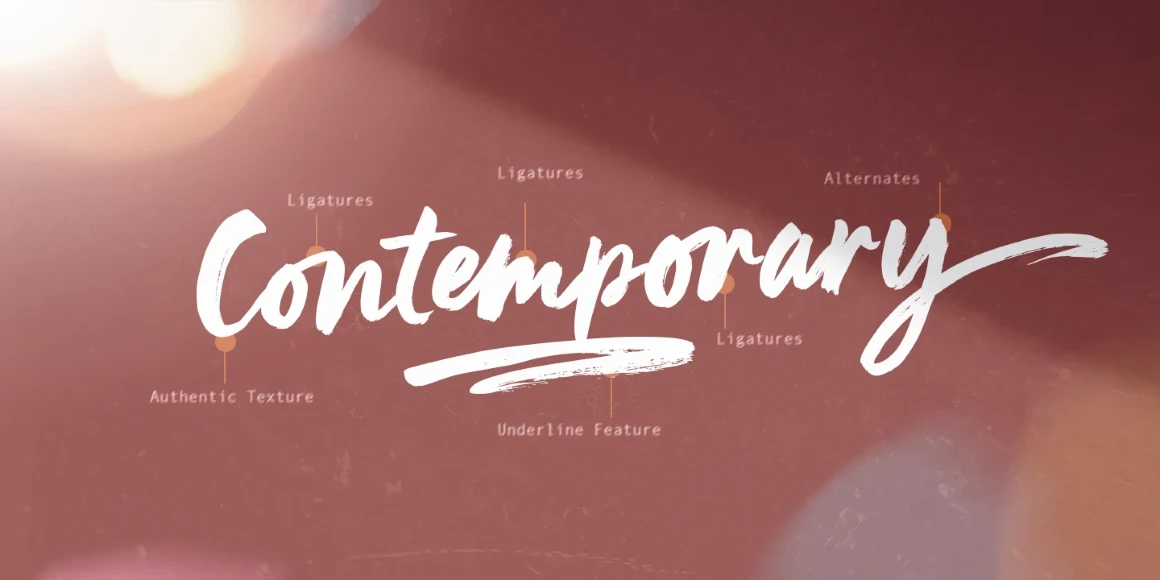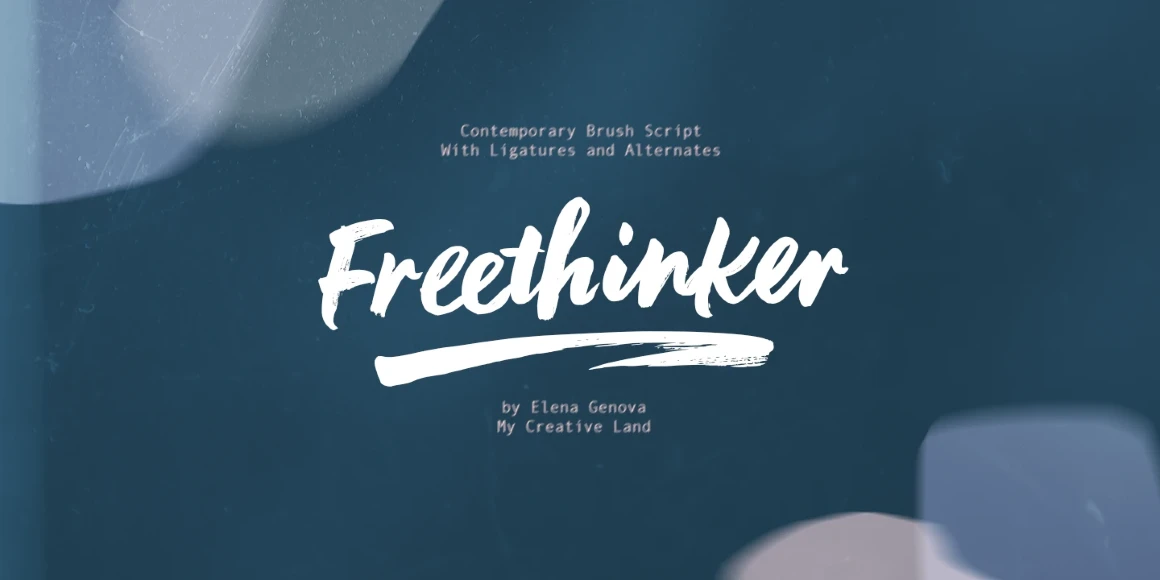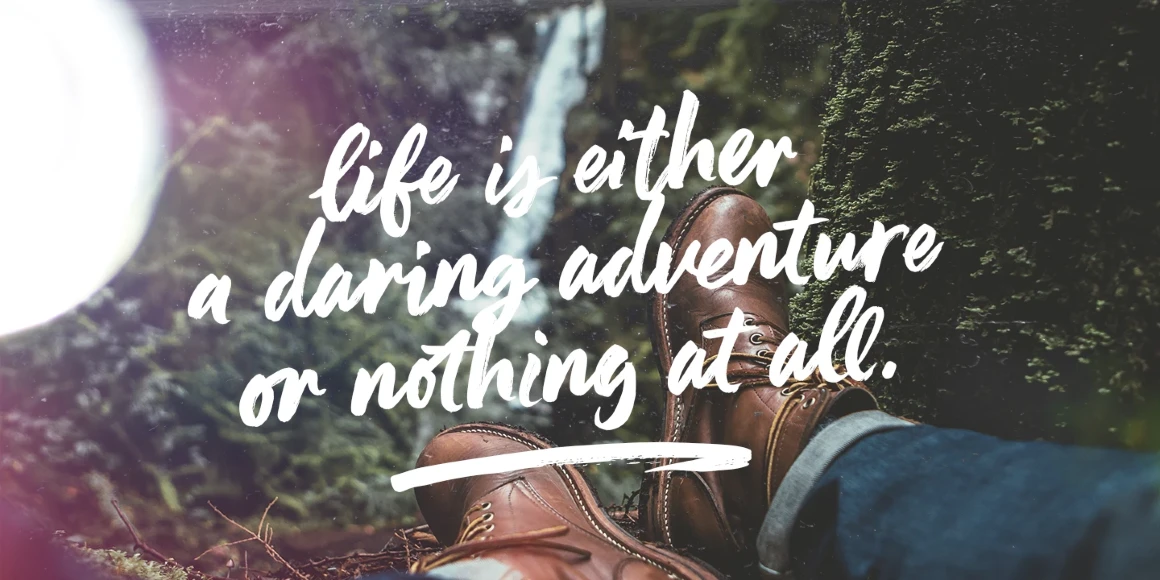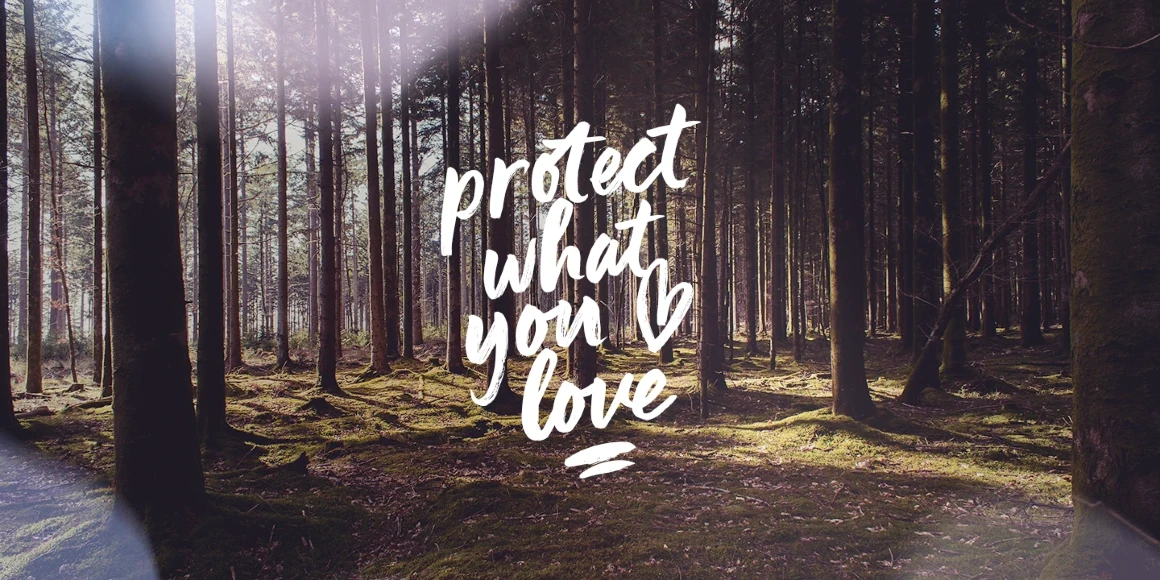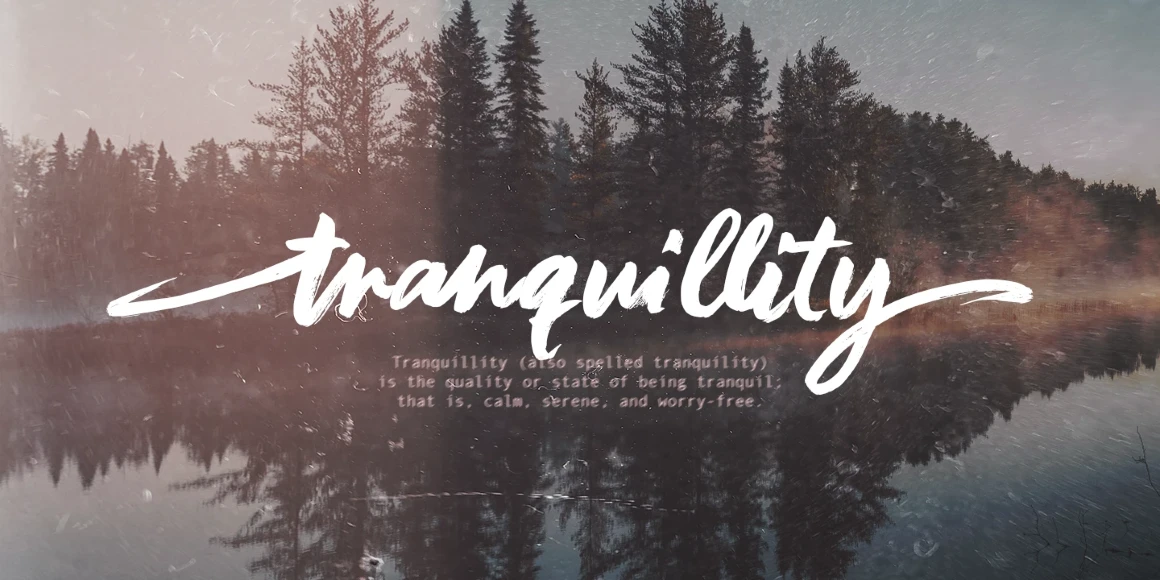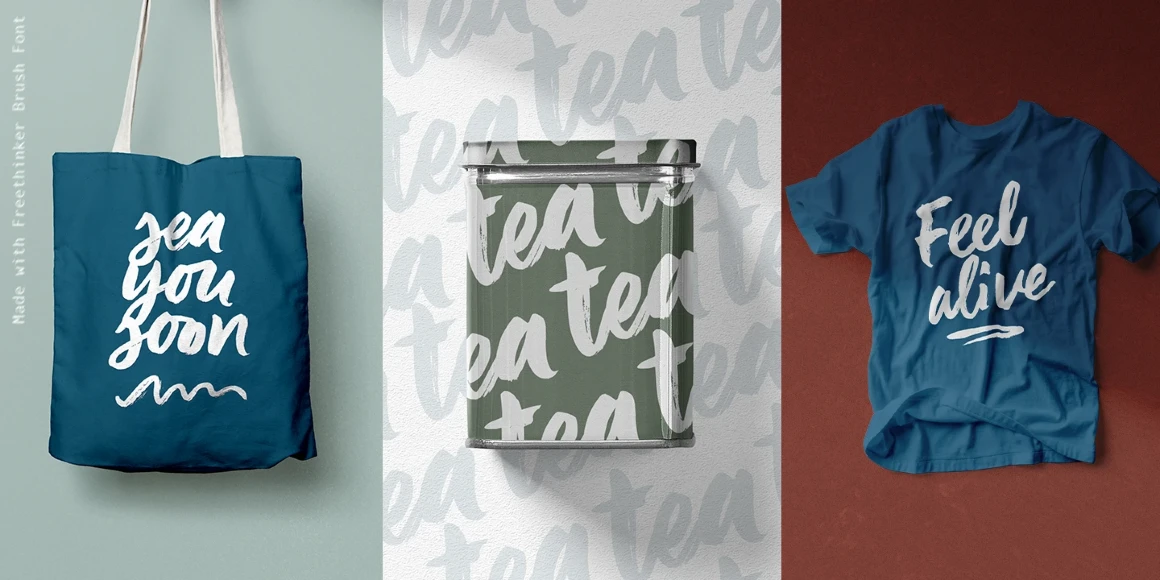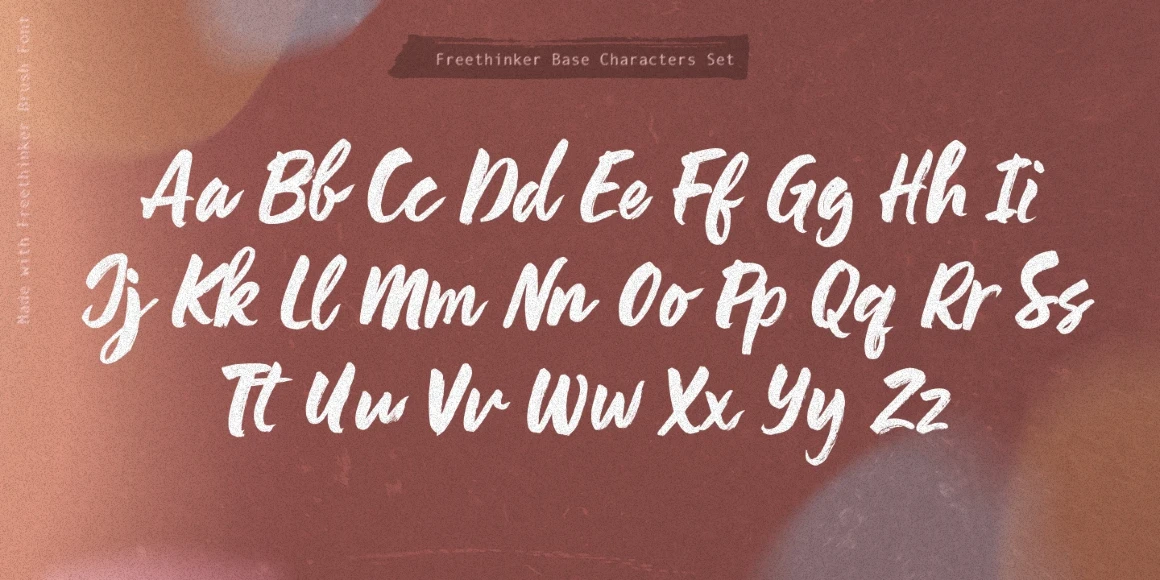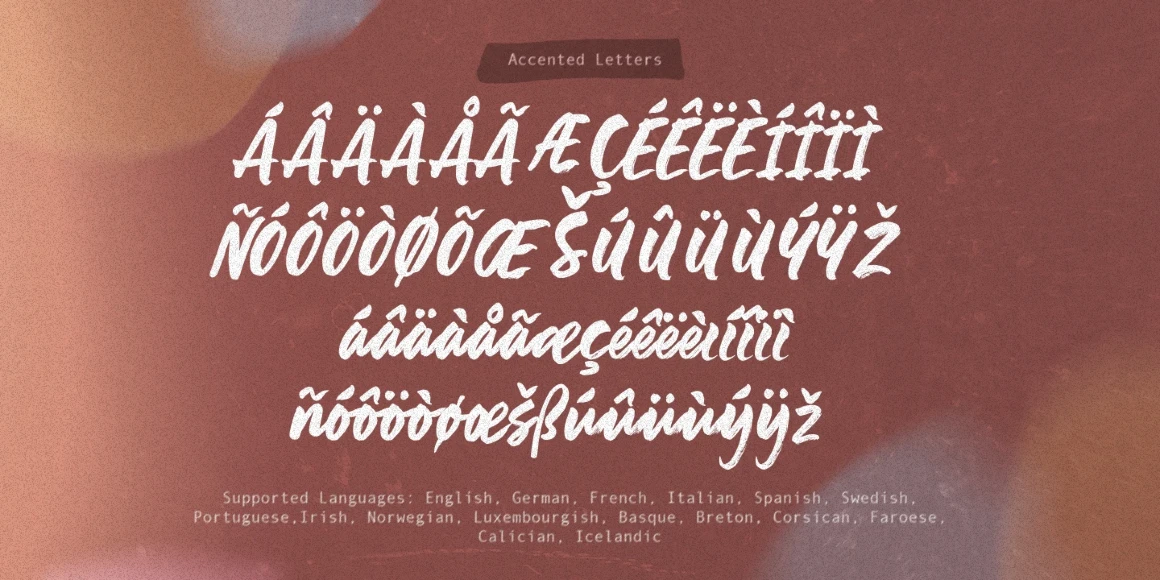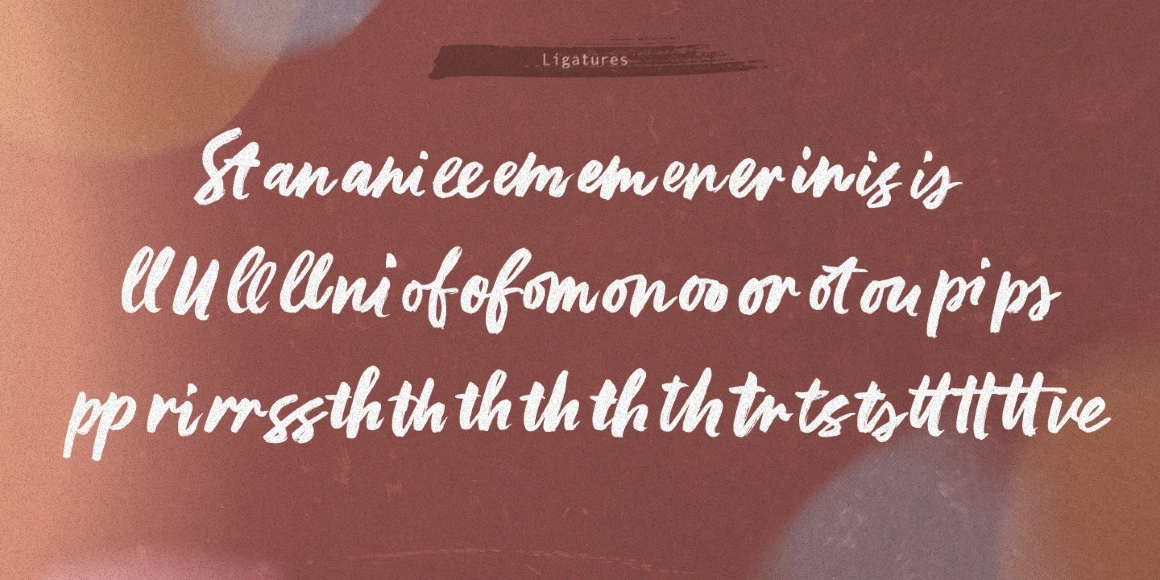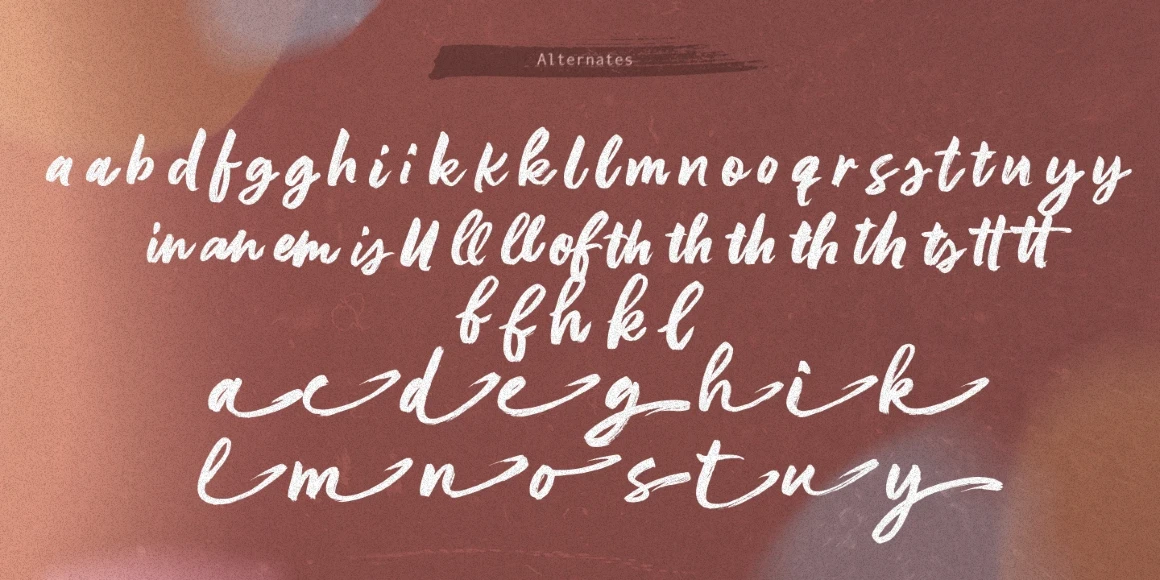
Freethinker
By Elena Genova
Freethinker Regular
Freethinker Upright
Freethinker is a casually irregular brush script. Depending on how it is used, it can give a sense of urgency or something more casual or informal. The designer using this typeface will benefit from the ligatures and stylistic alternates, allowing for a more authentic hand-lettered feel through their use and application. Freethinker is perfect for branding, greeting cards, packaging design, web design, and publication design. Don’t miss the design elements to add even more embellishment!